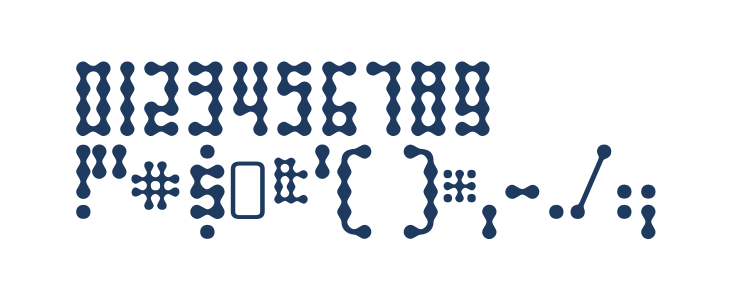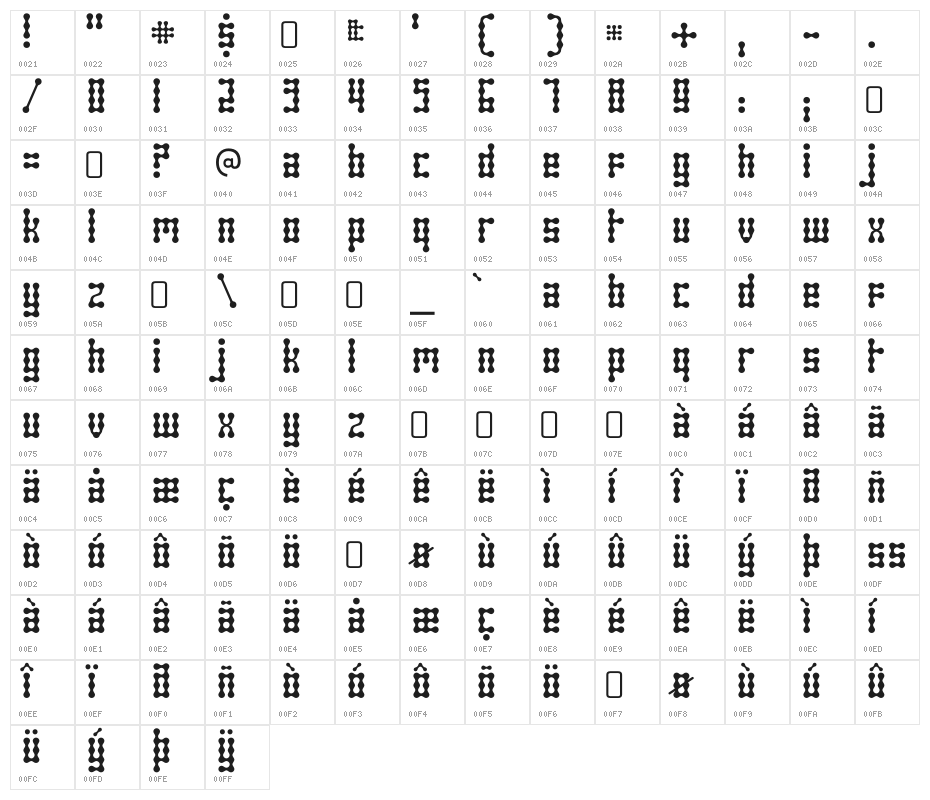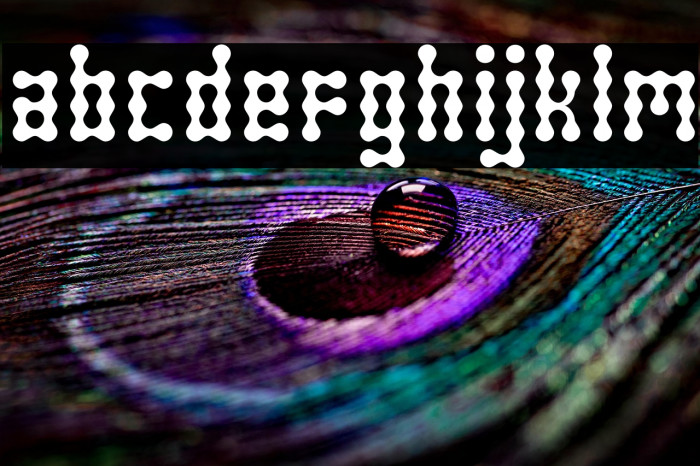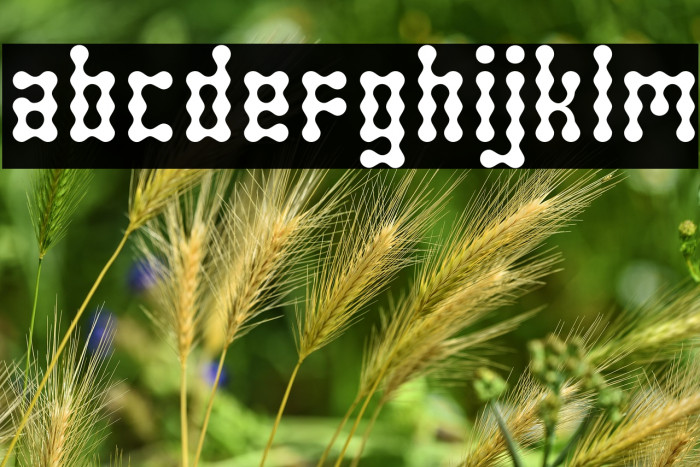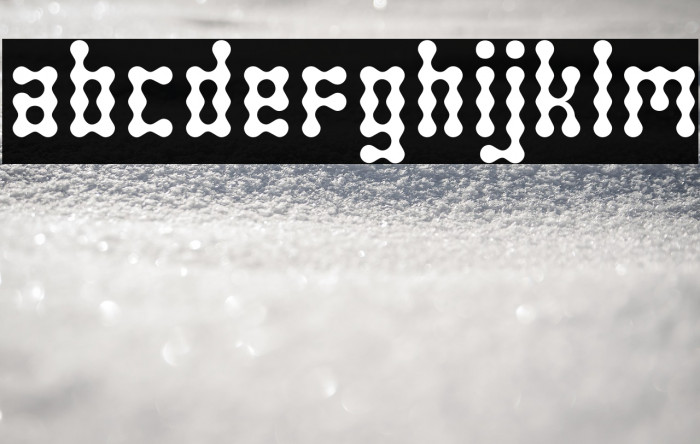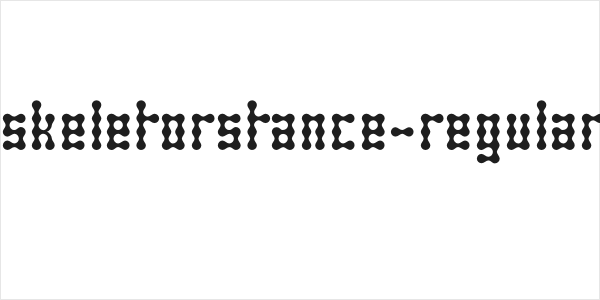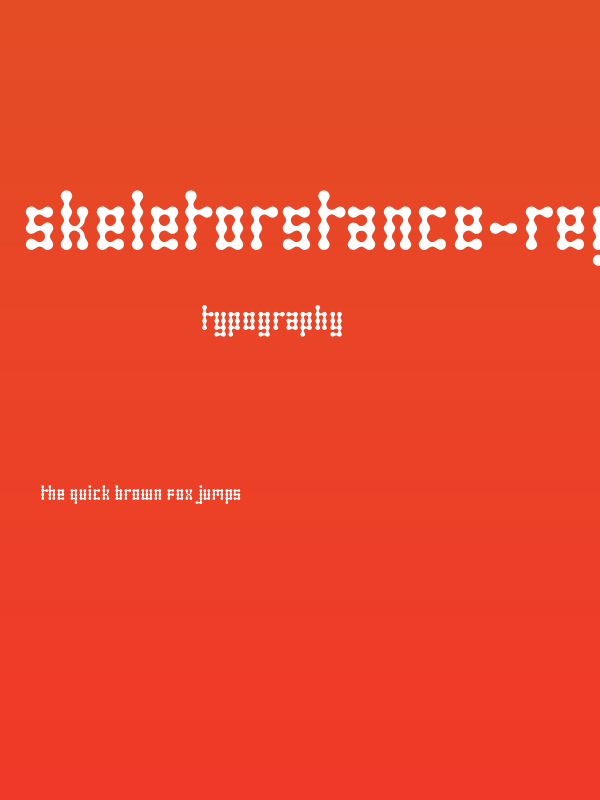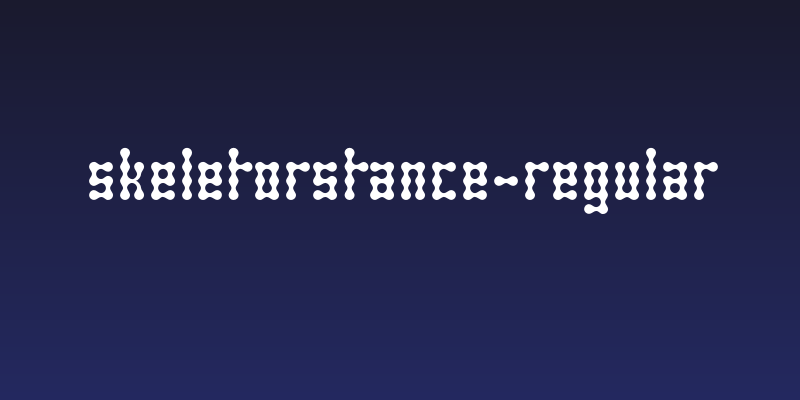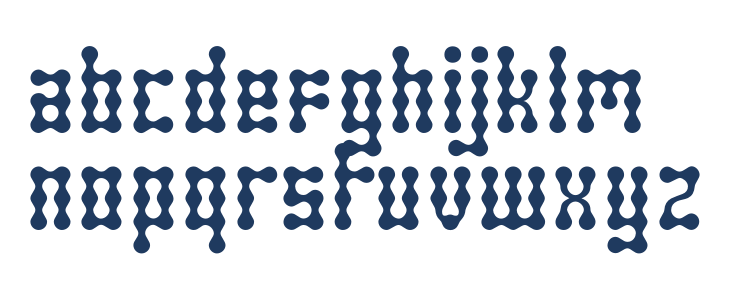
SkeletorStance-Regular Font
SkeletorStance-Regular Description
This font features a unique, bold design with interconnected, bubble-like shapes forming each character. The playful and organic structure gives it a distinct, eye-catching appearance. The letters are rounded and thick, with a consistent weight throughout, creating a cohesive and harmonious look. The font maintains a regular width, with medium character spacing that ensures readability while preserving its decorative style. The numbers and special characters follow the same design principles, making them easily recognizable and consistent with the overall aesthetic.
| Overall Style | Playful, Decorative |
| Proposed Projects | Ideal for children's books, playful branding, posters, and creative projects that require a fun and unique typeface. |